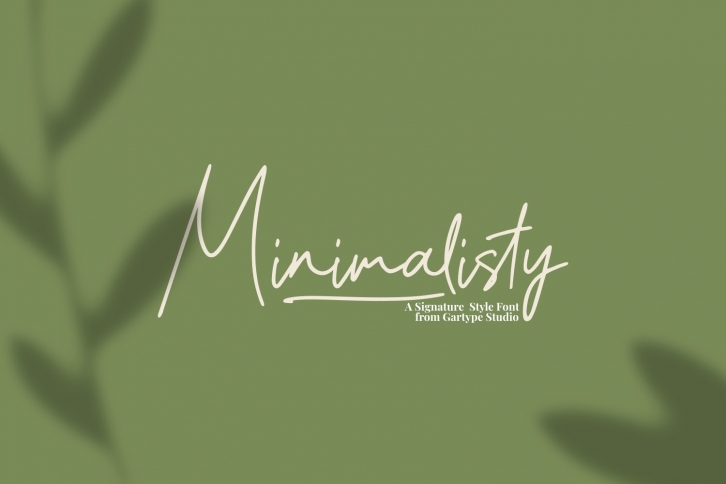
Minimalisty is a beautiful font that was designed by Gartype Studio. It's a great choice for designers and creatives who need such a font. It was released on October 20, 2020 and the file size is 14.75 MB. Minimalisty may give a more youthful, expressive and casual look to your project. It is a very beautiful, refined, elegant, and high-quality font.